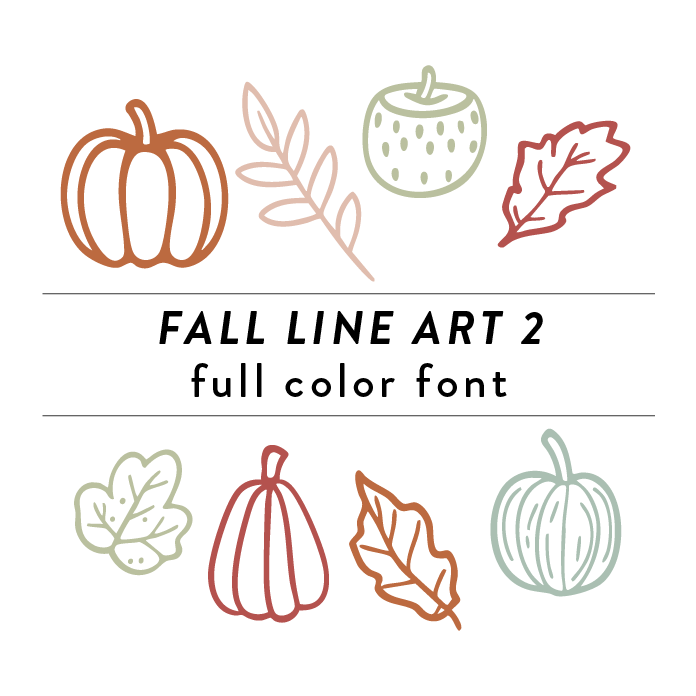
Fall Line Art Full Color Font 2 is a decorative font design inspired by autumn trees, branches, and leaves and pumpkins. The intricate line art detailing captures the essence of the season. This unique font is perfect for adding a touch of nature and sophistication to any fall DIY project, whether it be Thanksgiving or Halloween.